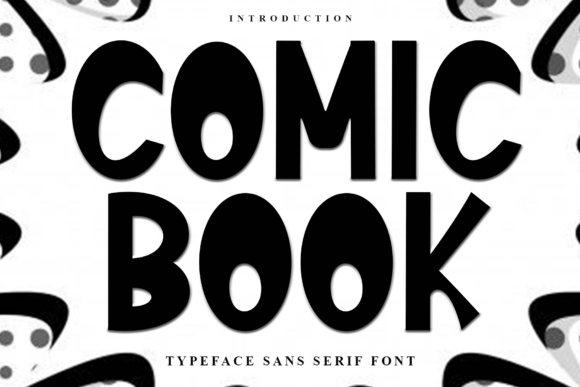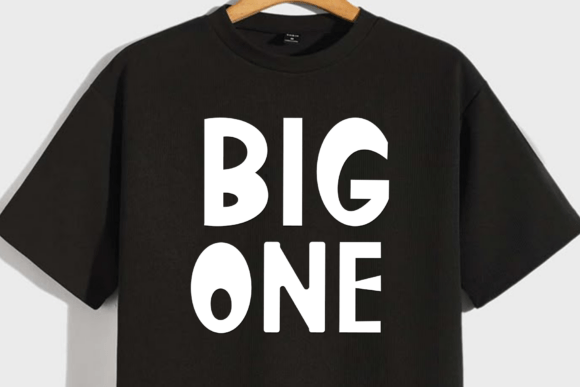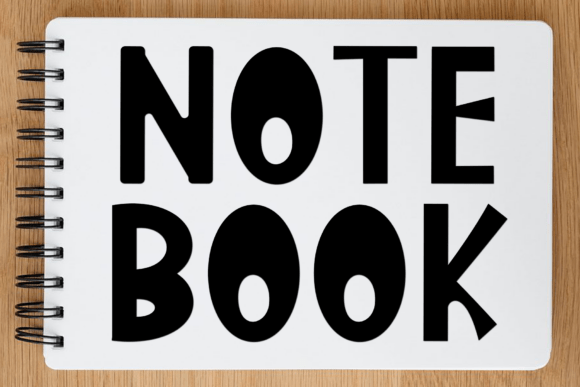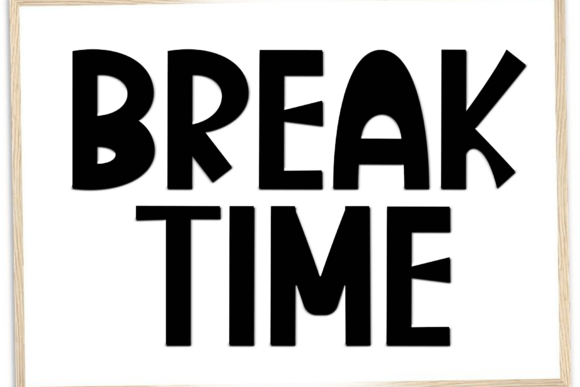
Comic Book Font
About the Comic Book Font
The Comic Book Font offers a perfect balance of form and function for your design needs. Comic Book is a festive and merry typeface that captures the spirit of the holiday season. With its decorative elements and whimsical flair, it adds a touch of enchantment to your designs. Perfect for greeting cards, gift tags, and holiday-themed projects, this font brings a cheerful and nostalgic ambiance to your words. Let your typography shine with the magic of Beautiful Font!
Comic Book Font’s playful energy makes it ideal for headlines, short bursts of text in advertising, or packaging for products targeting a younger demographic. It excels in projects requiring a fun, whimsical feel, such as children’s books, event posters, or branding for playful brands. However, its decorative nature makes it unsuitable for body text or UI elements where readability is paramount; extended use would be visually overwhelming and hinder comprehension.
Pairing it with a clean sans-serif like Open Sans for body copy creates a strong contrast, allowing the Comic Book Font to shine as an accent. Alternatively, a simple serif such as Lora provides a more classic counterpoint, balancing the font’s lightheartedness with a touch of sophistication. For a bolder approach, consider pairing it with a geometric sans-serif for a modern, slightly retro feel.
The overall personality is undeniably cheerful and nostalgic, evoking a sense of fun and lightheartedness. It is best suited to brands and projects that want to communicate joy, approachability, and a sense of childlike wonder.
Comic Book Font Usage Examples
Comic Book Font Example